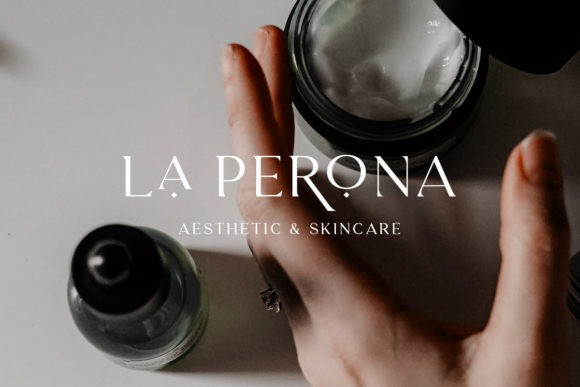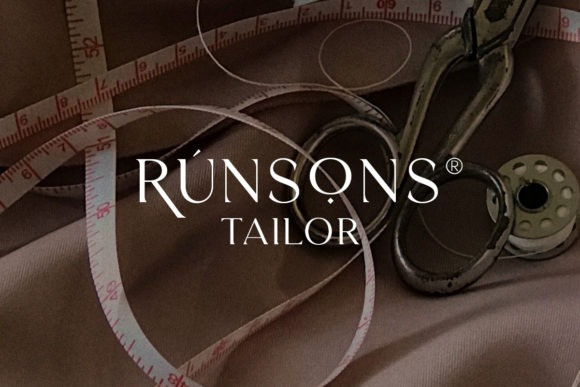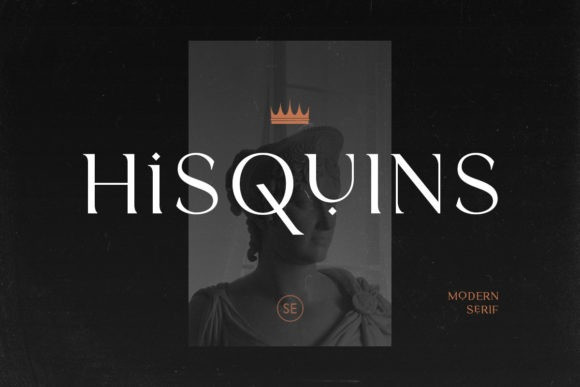
Hisquins Serif Font
Hisquins is a modern, elegant and luxurious serif font. It looks beautiful on a variety of designs requiring a personalized style, such as wedding invitations, thank you cards, weddings, greeting cards, logos and so on.